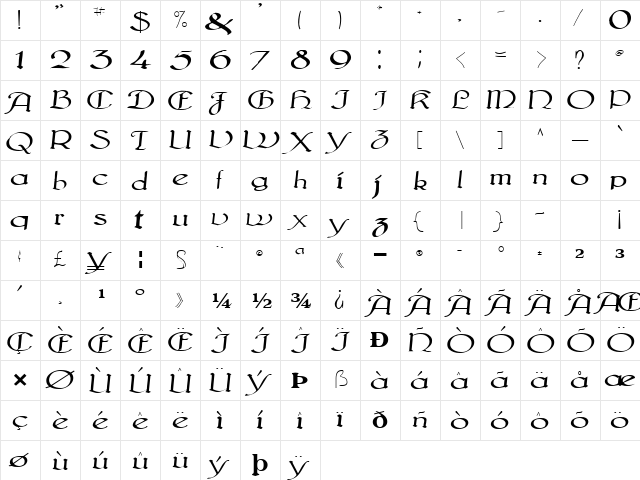
Plato Regular
Design Context for Plato Typeface
Plato is a composed and adaptable typeface that performs quietly and consistently across a wide range of design contexts.